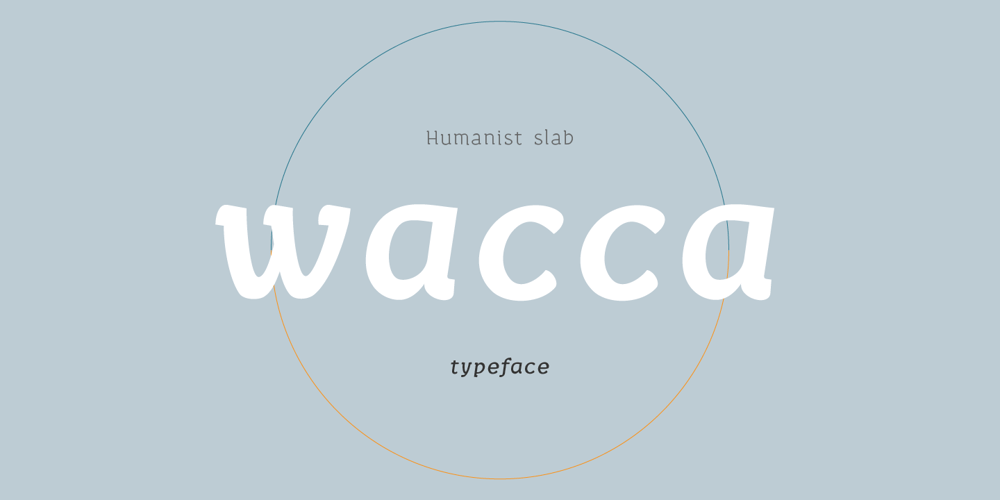
Wacca Font Family was designed by Motoki Higa and published by One Fonty Day. Wacca contains 8 styles and family package options. Wacca straddles the categories of Humanist slab and Contemporary serif, and it also gives a handwriting taste especially in the italics. Its tall x-height enables them to be extremely visible, and the slightly curved strokes on some letters give them a pleasant and organic look as a whole. The Italics introduces more cursive strokes all over, so it comes across much more organic than the regulars. This unique, fun, yet simple family is good for any purpose.